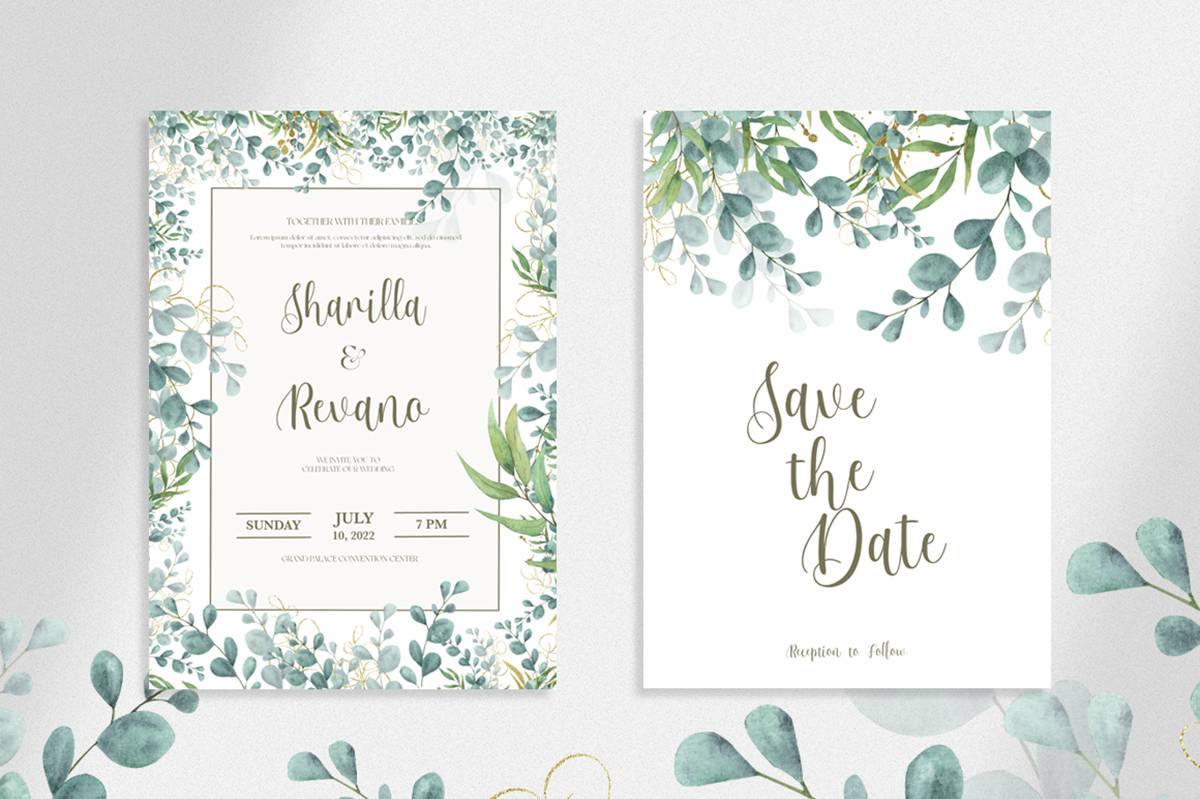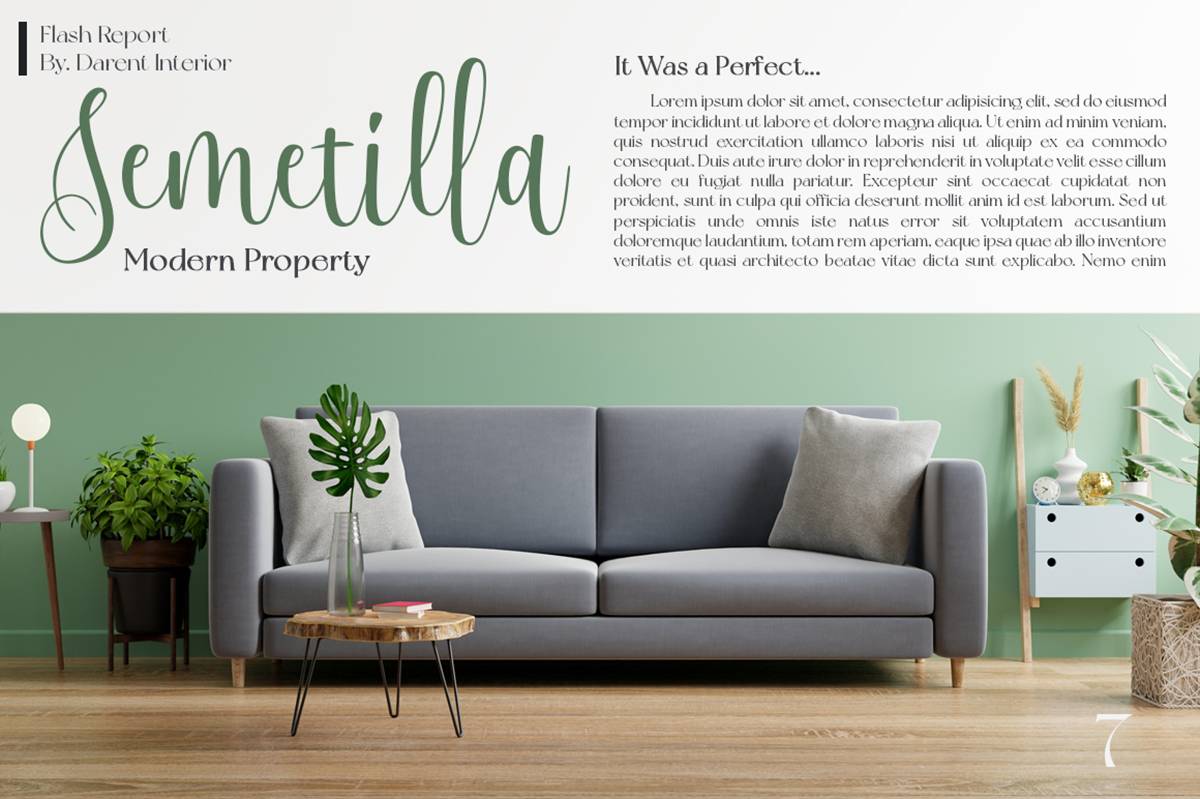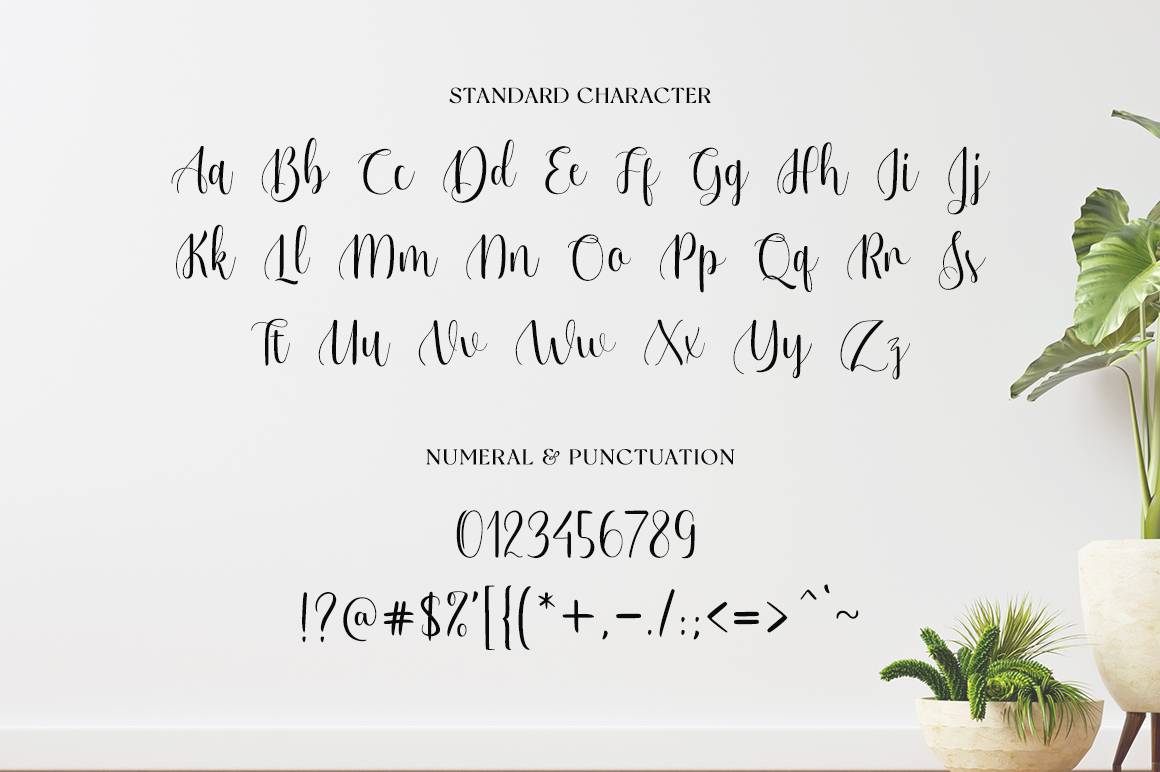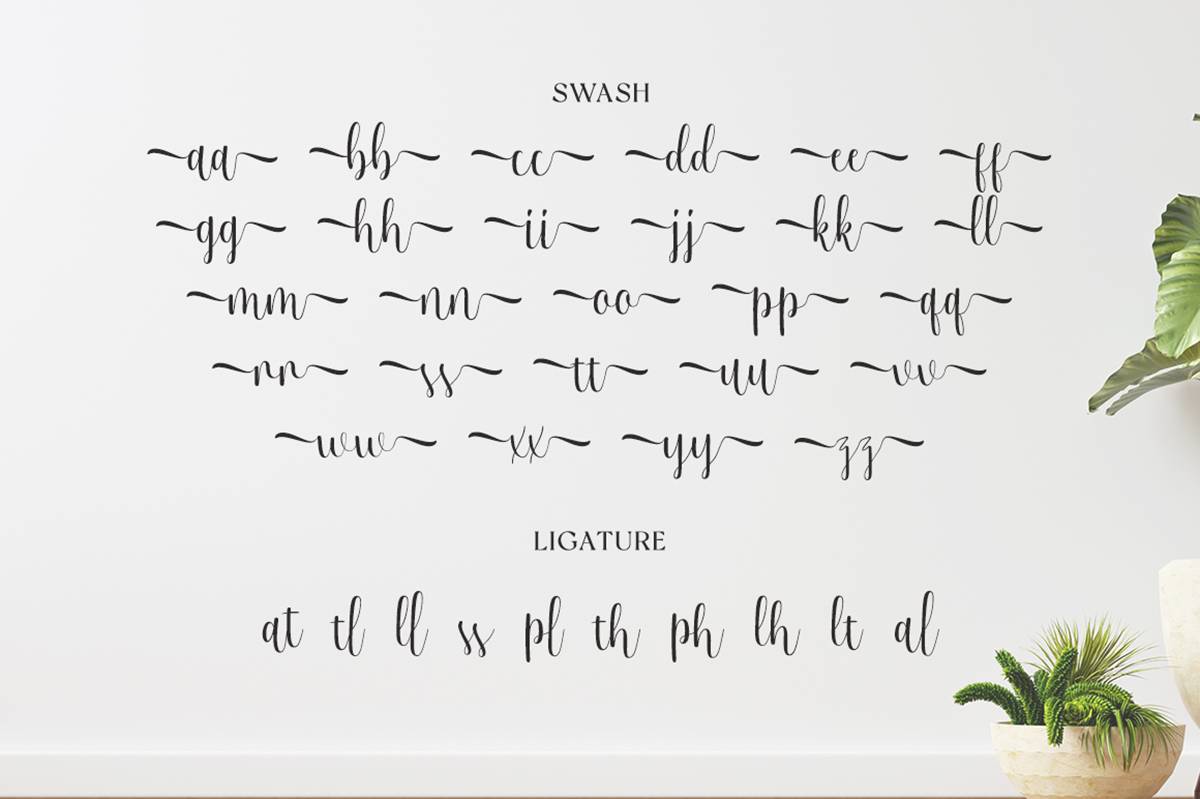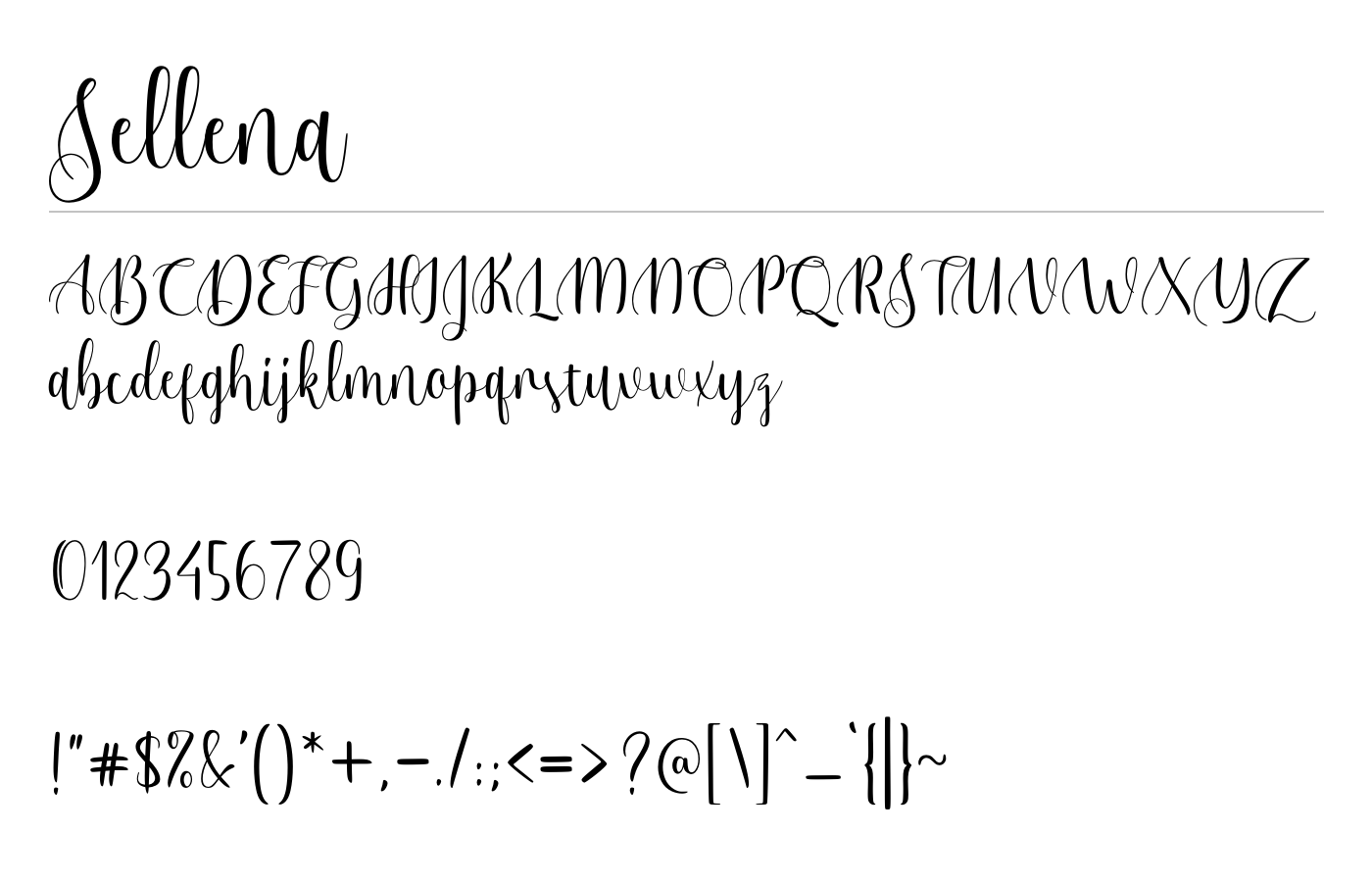
Sellena is a graceful script font with elegant, flowing letterforms that blend delicate strokes with subtle flourishes, giving it a refined and artistic feel. Its slender, tall characters and smooth curves make it perfect for invitations, branding, and creative projects seeking a sophisticated, feminine touch. This font shines in settings where elegance and style are key, such as wedding designs, fashion logos, and luxury packaging.
Sellena Font
About Sellena Font